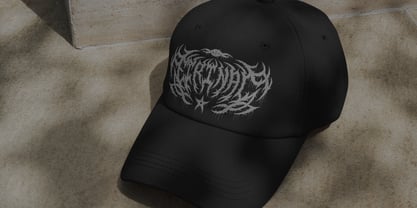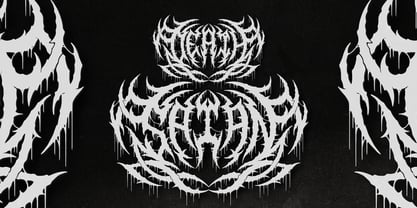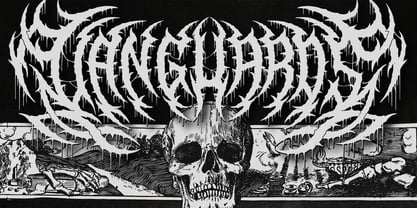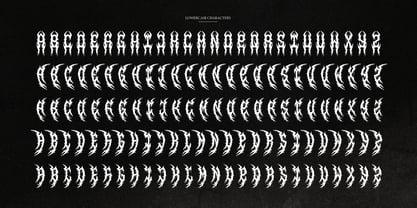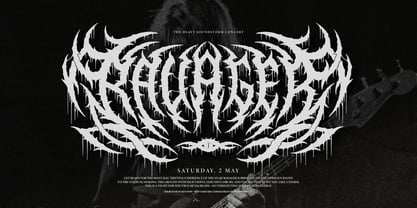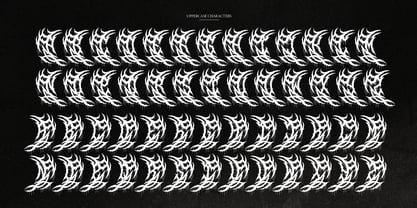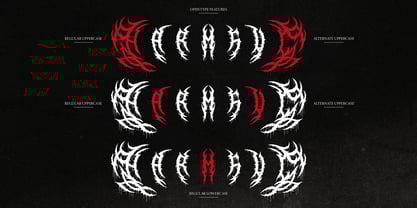
Harmful
by Denustudio
The Harmful Font Family was designed by Dede Nugraha and published by Denustudio. Harmful contains 1 styles. More about this family
Harmful | Death Metal Font, from Denustudios, suitable for any projects such as: logos, branding projects, homeware designs, product packaging, mugs, quotes, posters, shopping bags, t-shirts, book covers, name card, invitation cards, greeting cards, label, photography, watermark, special events, and all your other lovely projects that need a Death Metal Font taste.
• Alternate and Ligature